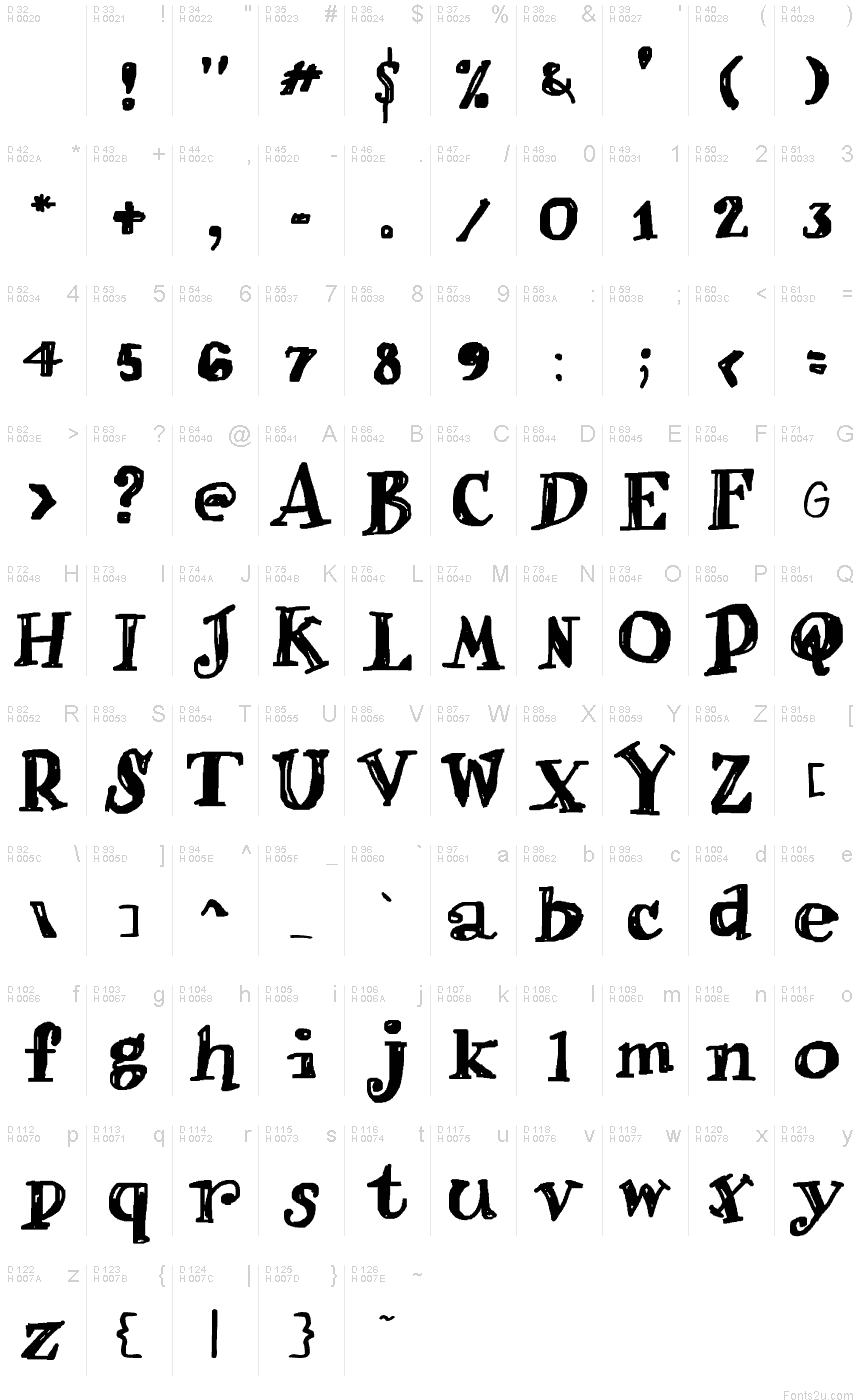
Fair view
Fair View is a free Celtic Gothic display font with uneven, theatrical letterforms and a deliberately unruly silhouette. Broad slab-like strokes alternate with thin, pinched sections, and the shifting proportions make each character resemble lettering cut from an eccentric old sign.
Festival posters are its strongest setting, with pub branding, album covers, and fantasy game graphics close behind. Across these uses, the crooked serifs, abrupt changes of weight, and loosely carved appearance connect the lettering to folklore, folk music, and unusual historical settings.